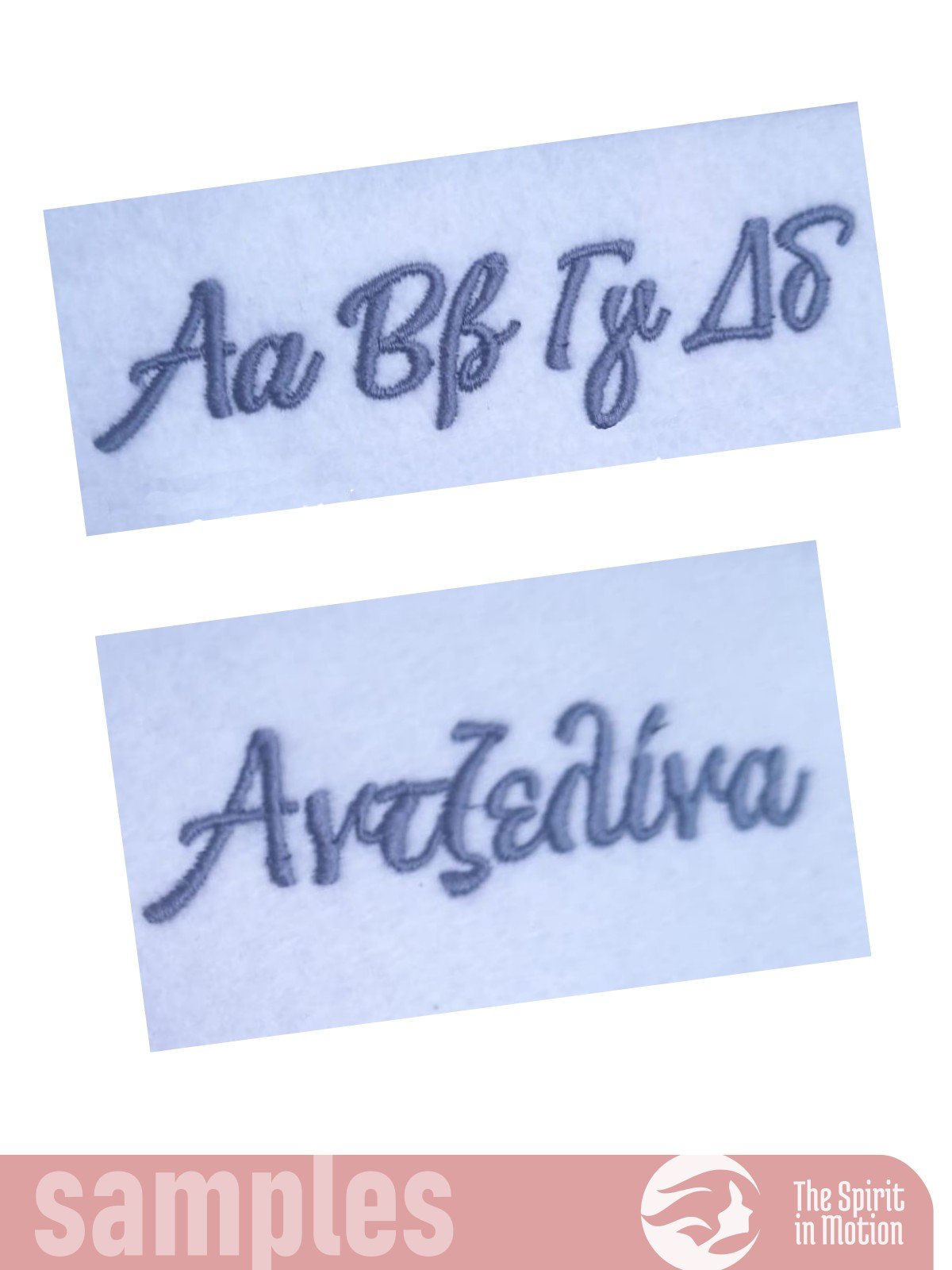
Greek Handwritten Script Machine Embroidery Font | PES, BX, DST
Add a stylish and modern flair to your embroidery projects with this witty Greek Alphabet script font that includes diacritics. Perfect for personalizing clothing, accessories, or home décor. The listed sizes refer to the approximate height of uppercase letters, though adjustments may be needed depending on your specific project and machine settings.